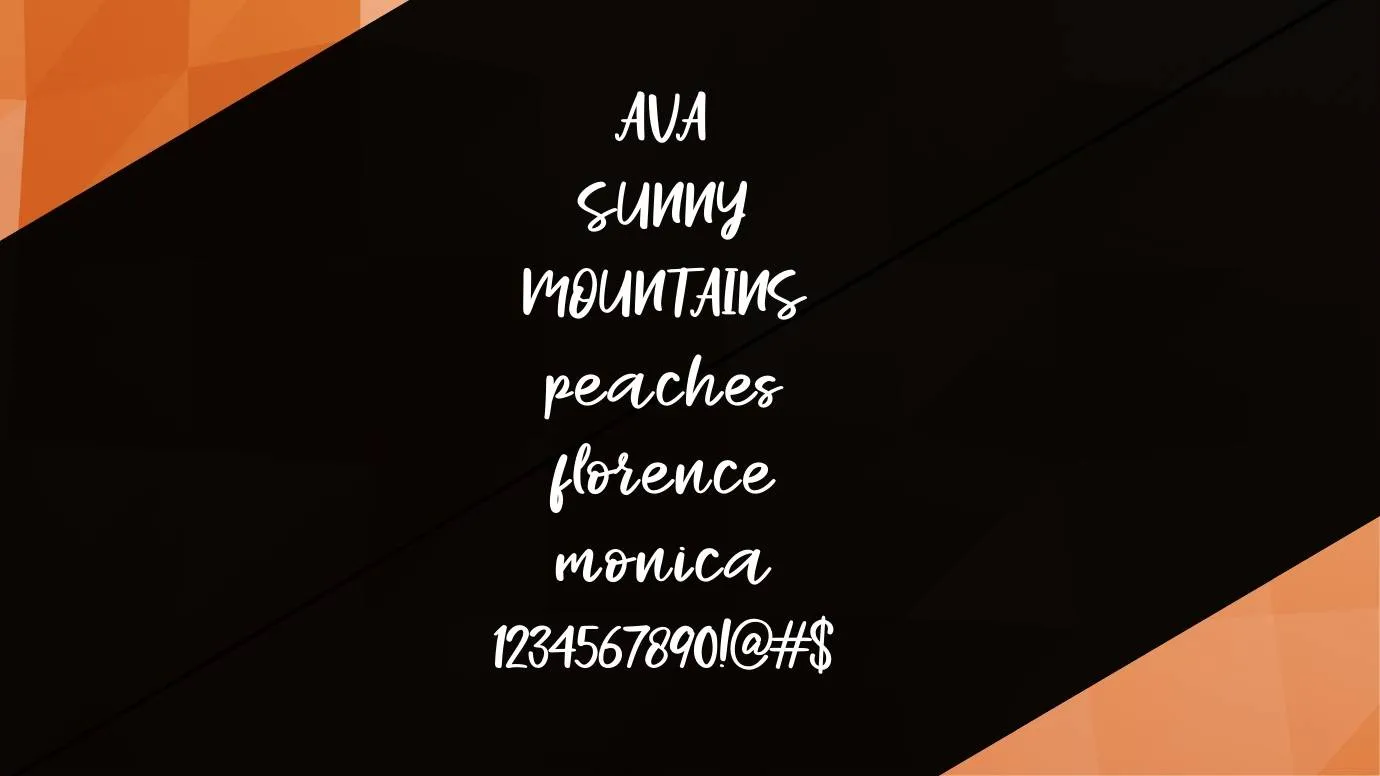
Hello Lovely Font was designed by Type Associates in 1965. The design is based on the early 20th century American Arts and Crafts movement. The font was first used on a poster for the film “Hello, Dolly!”
The Hello Lovely Font has been used by many companies, including Coca-Cola, IBM, and Nike. The font is also popular with scrapbookers and crafters. It is a versatile font that can be used for both formal and informal purposes.
This font is perfect for those who are looking for a brush script font with a bit of personality. This texture includes many features such as ligatures, swashes, and alternates. The overall tone of the font is playful and friendly.
Hello, Lovely is a great choice for invitations, greeting cards, logos, and much more. A similar font for this typeface is yaquote script font. This typeface consists of two different fonts: Regular and Bold. It has multiple types of characters including symbols and punctuation marks.
It was designed by Type Associates in 1965. The design is based on the early 20th-century American Arts and Crafts movement.
This single attractive style combines different factors, including uppercase letters and lower-case letters, digits, punctuations, characters, unique symbols, glyphs, and numerous language support.
| Style | Brush |
| Designer | Type Associates |
What is the Hello Lovely Font?
It is a brush script font with a bit of personality. The hello lovely font includes many features such as ligatures, swashes, and alternates. The overall tone of the font is playful and friendly.
This font is versatile font that can be used for both formal and informal purposes. Hello Lovely is a great choice for invitations, greeting cards, logos, and much more.
It includes both upper and lowercase letters, numbers, and punctuation marks. The font also includes ligatures, swashes, and alternates.